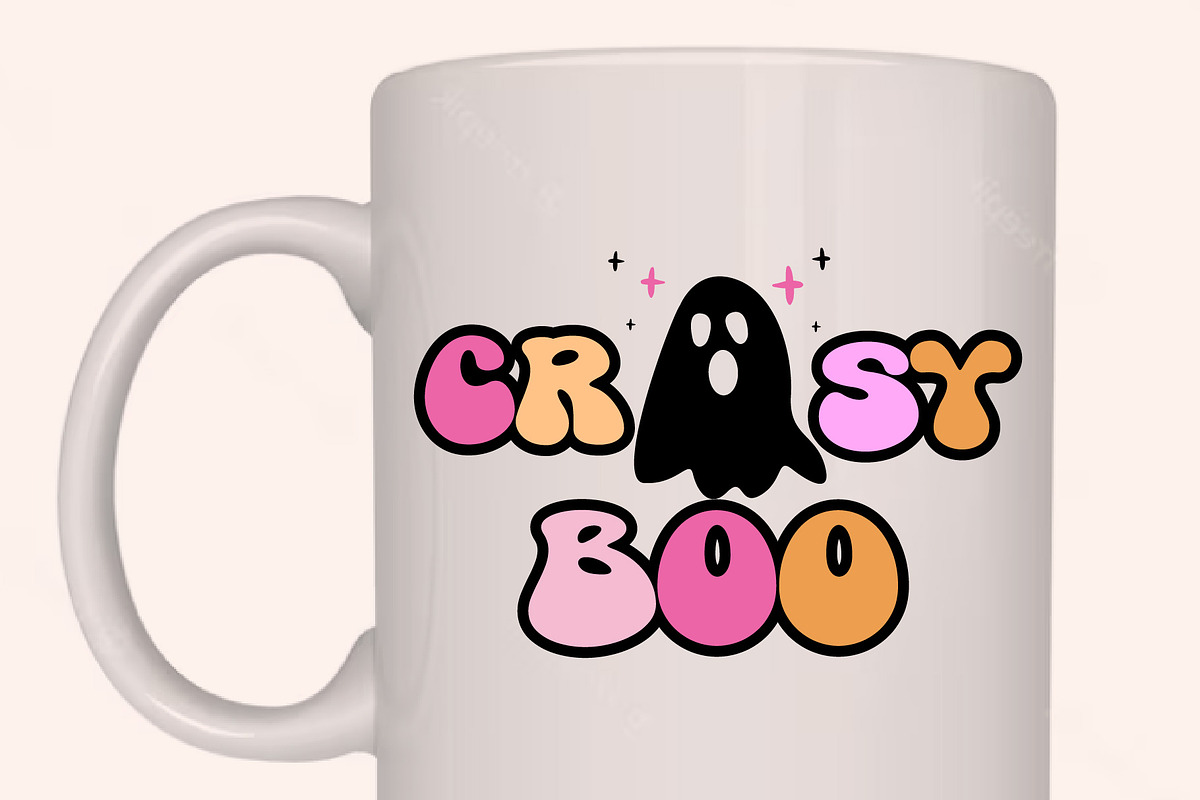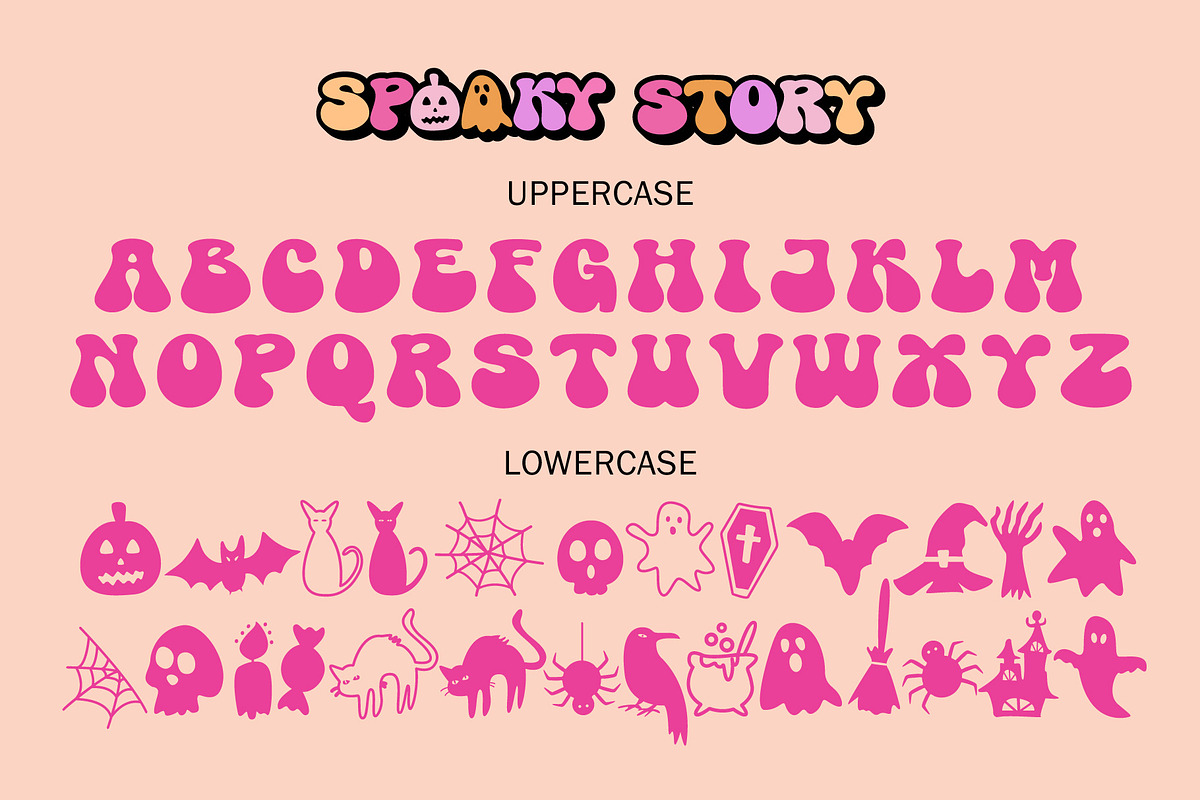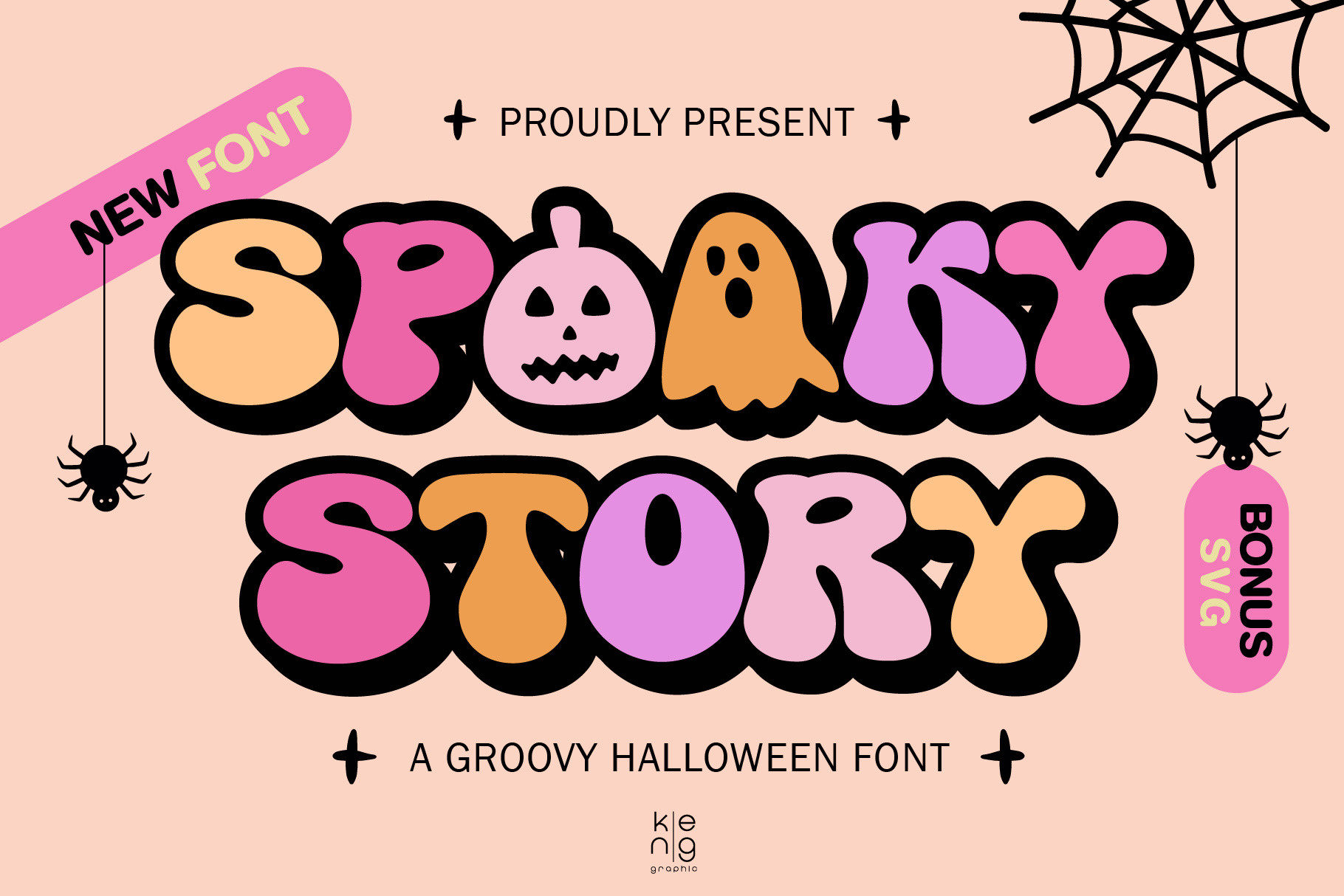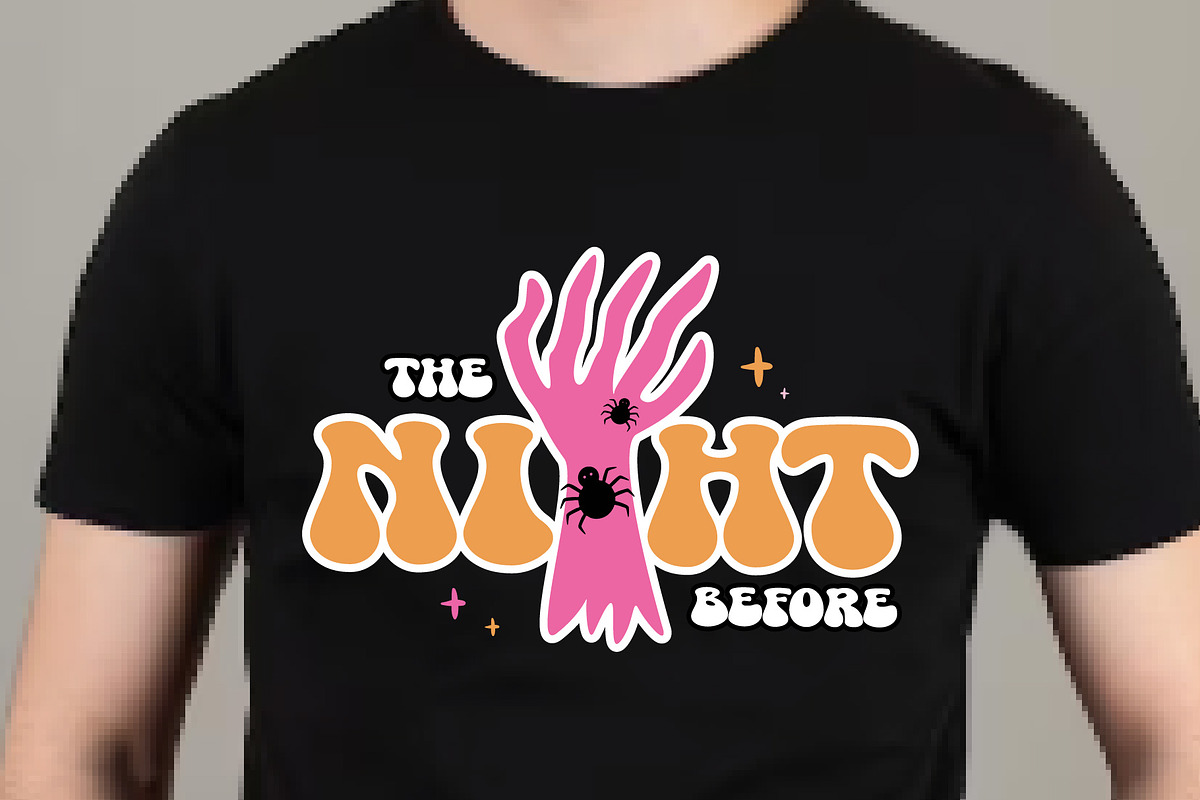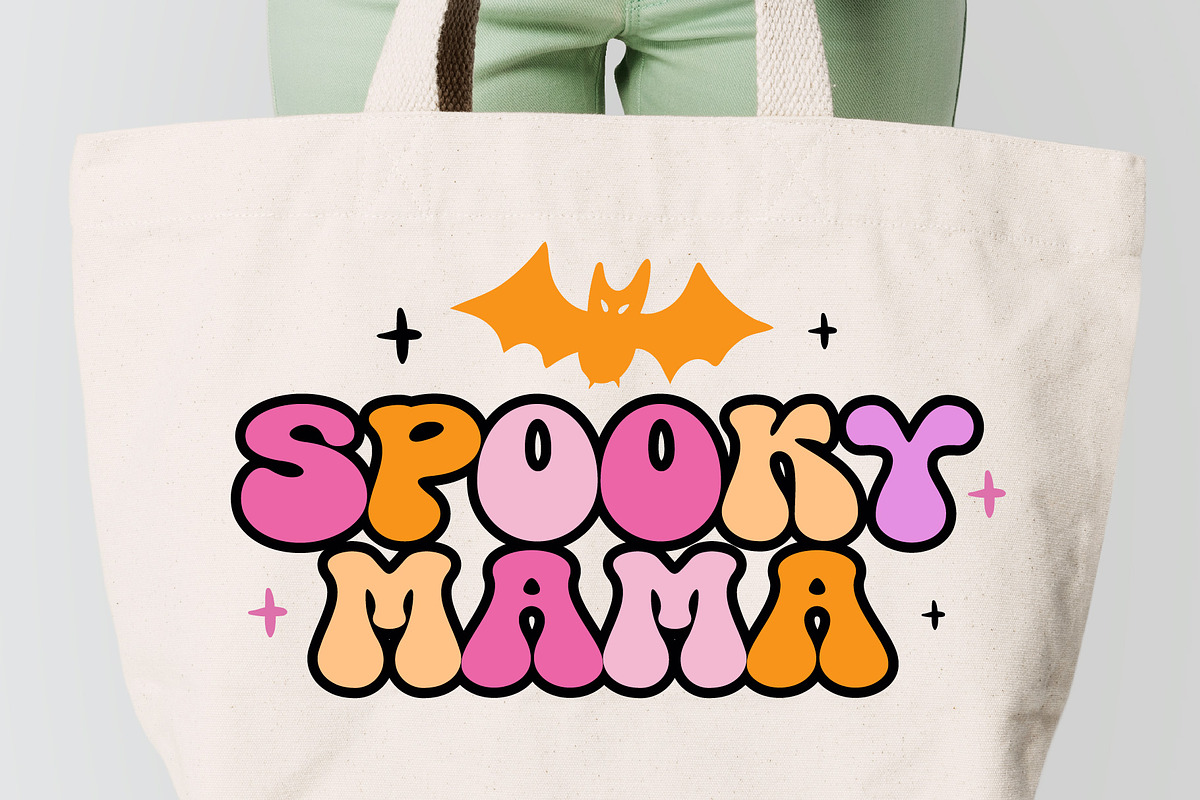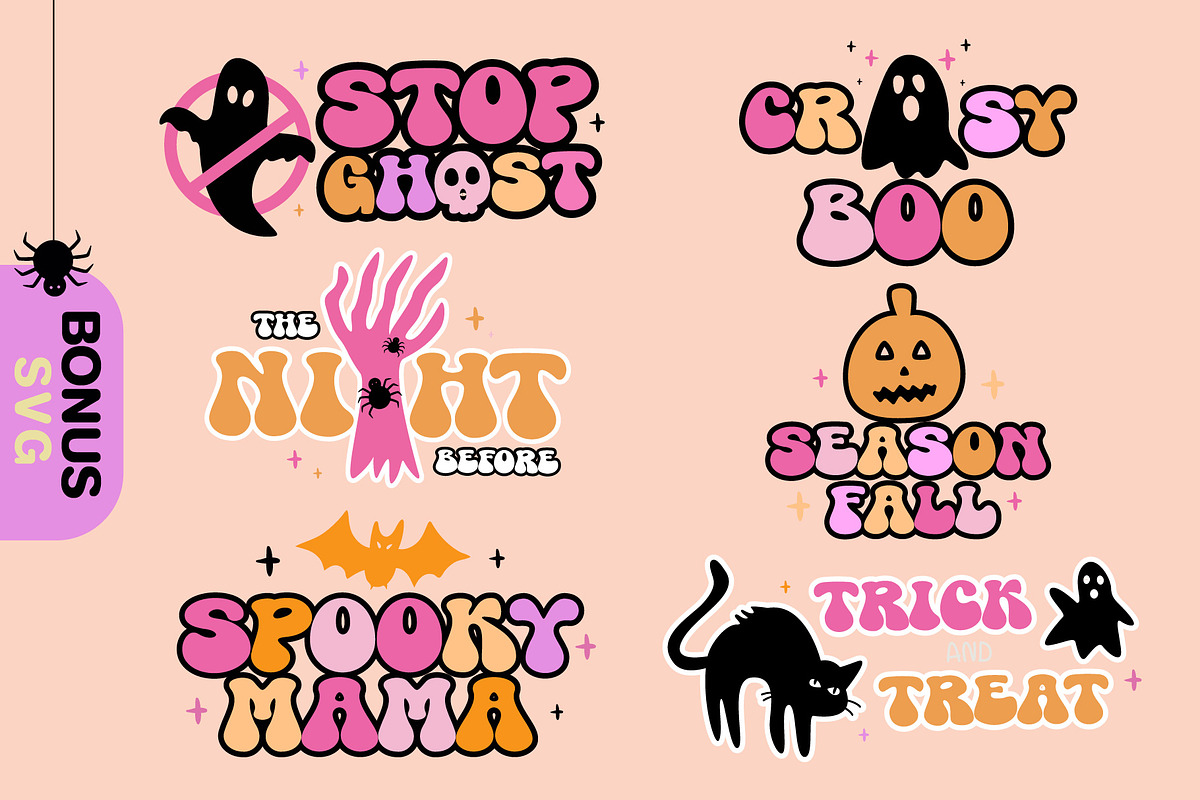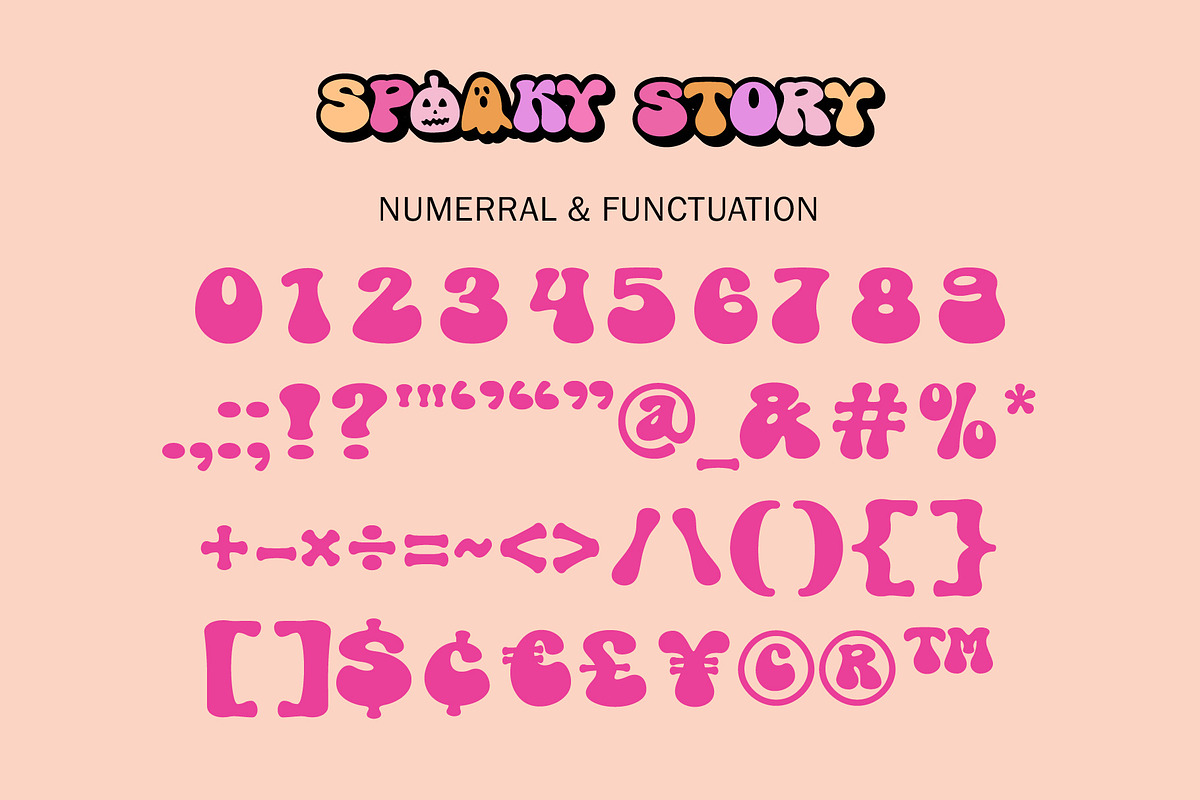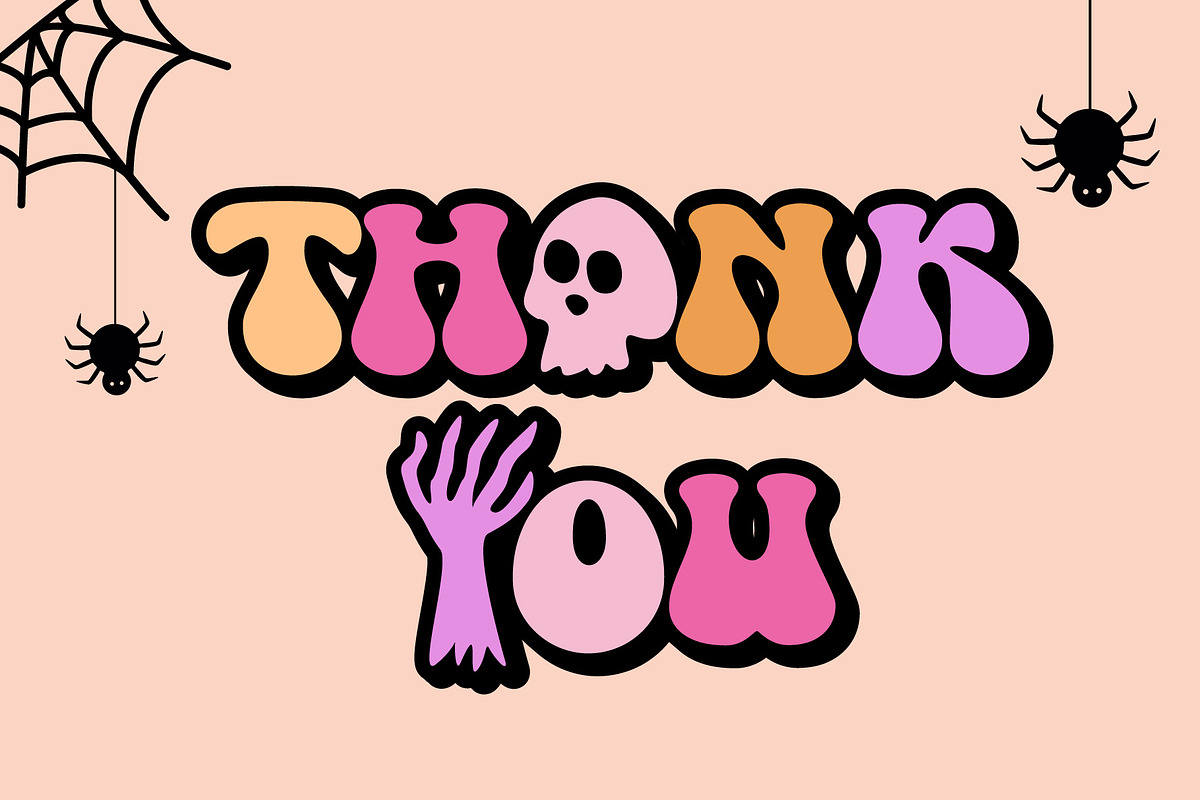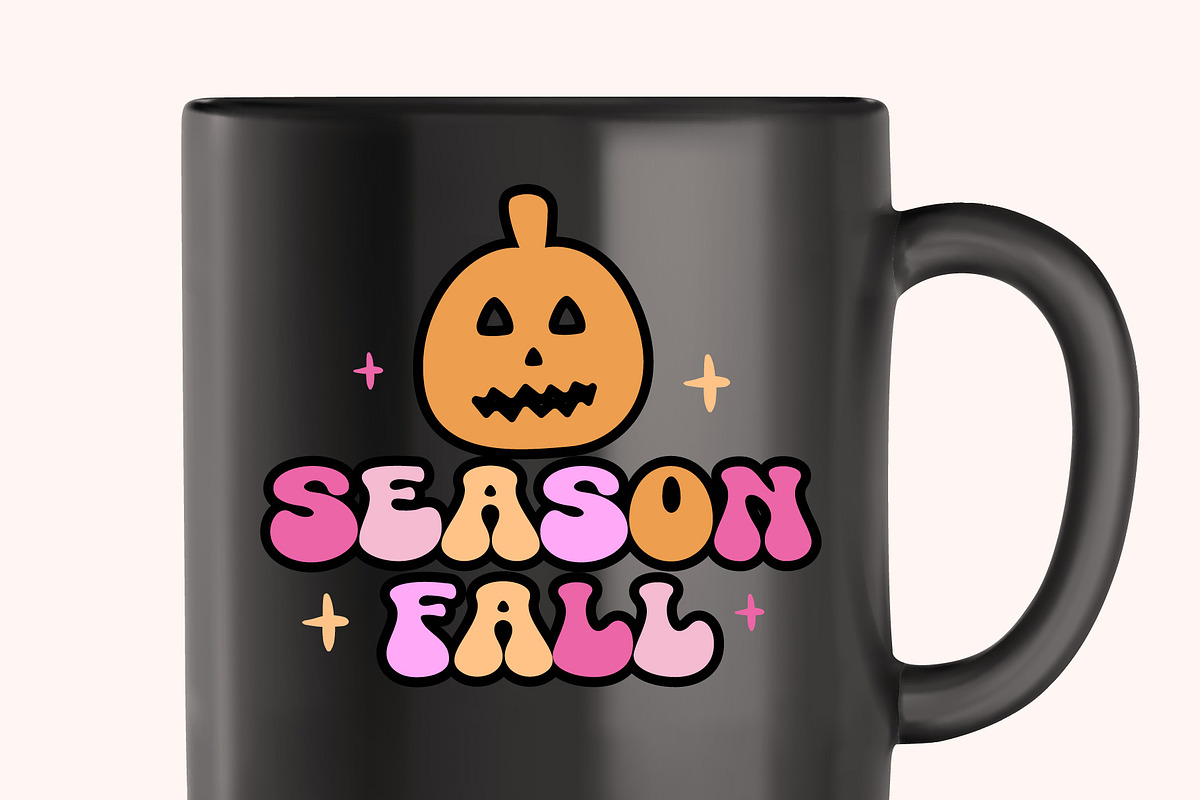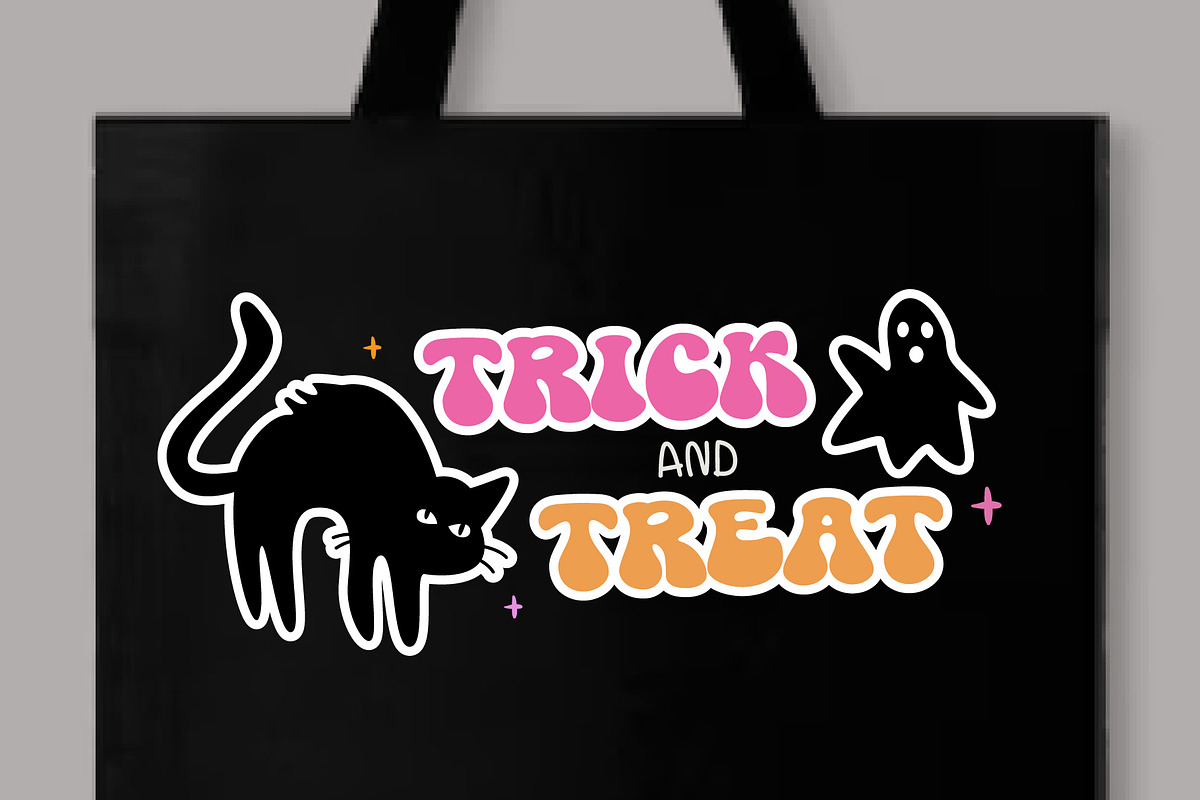
Spooky Story Font
Experience the quirky charm of Spooky Story, a groovy font with a playful edge. Ideally suited for Halloween-themed creations, this stylistic typeface breathes uniqueness into t-shirts, bags, mugs, and all facets of your diverse design universe. With Spooky Story, infuse your undertakings with a fun flair that effortlessly captures the Halloween spirit.